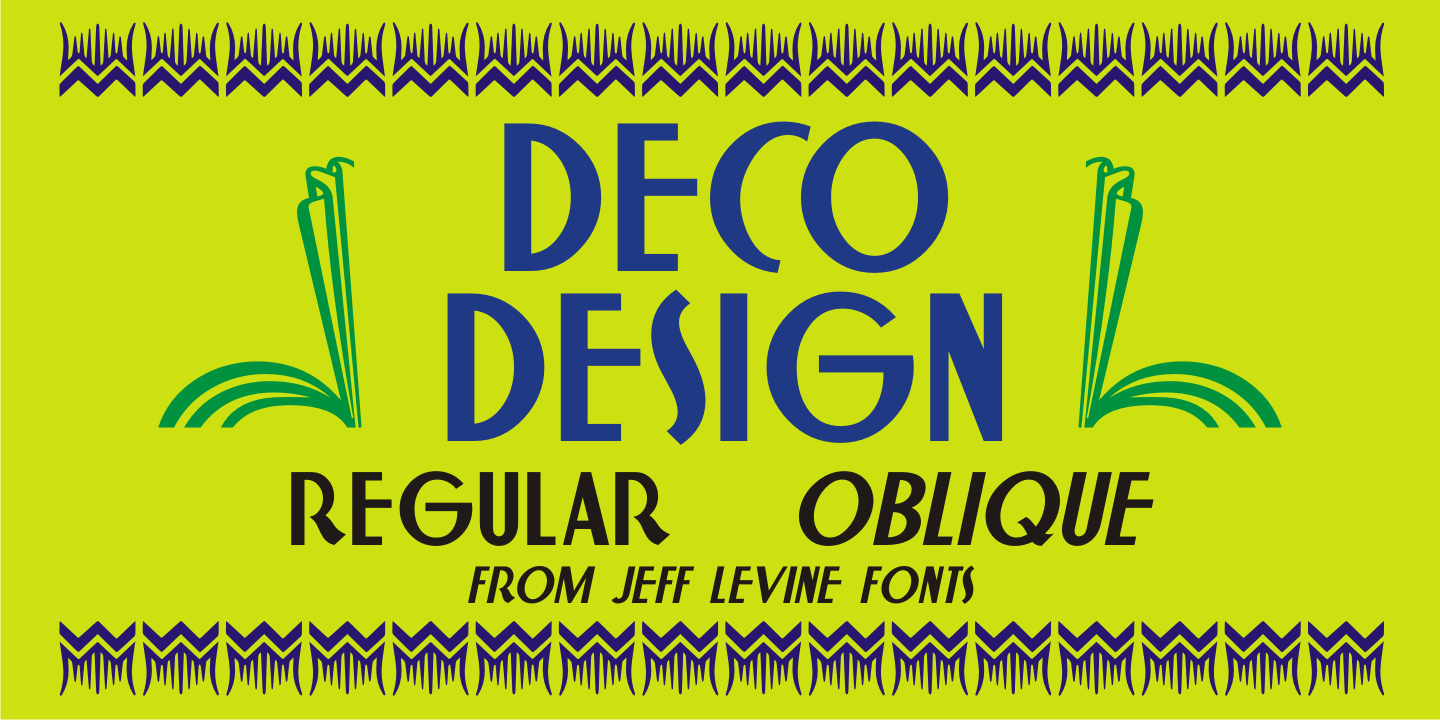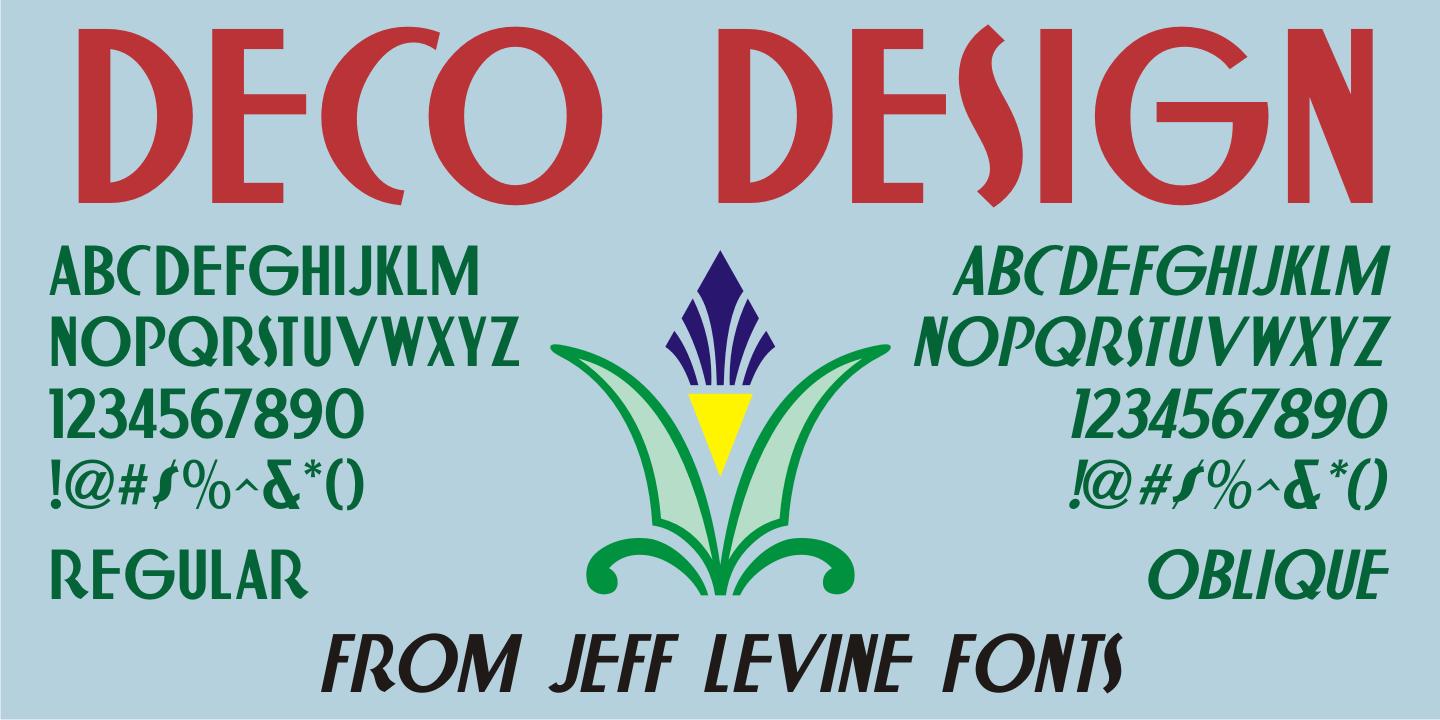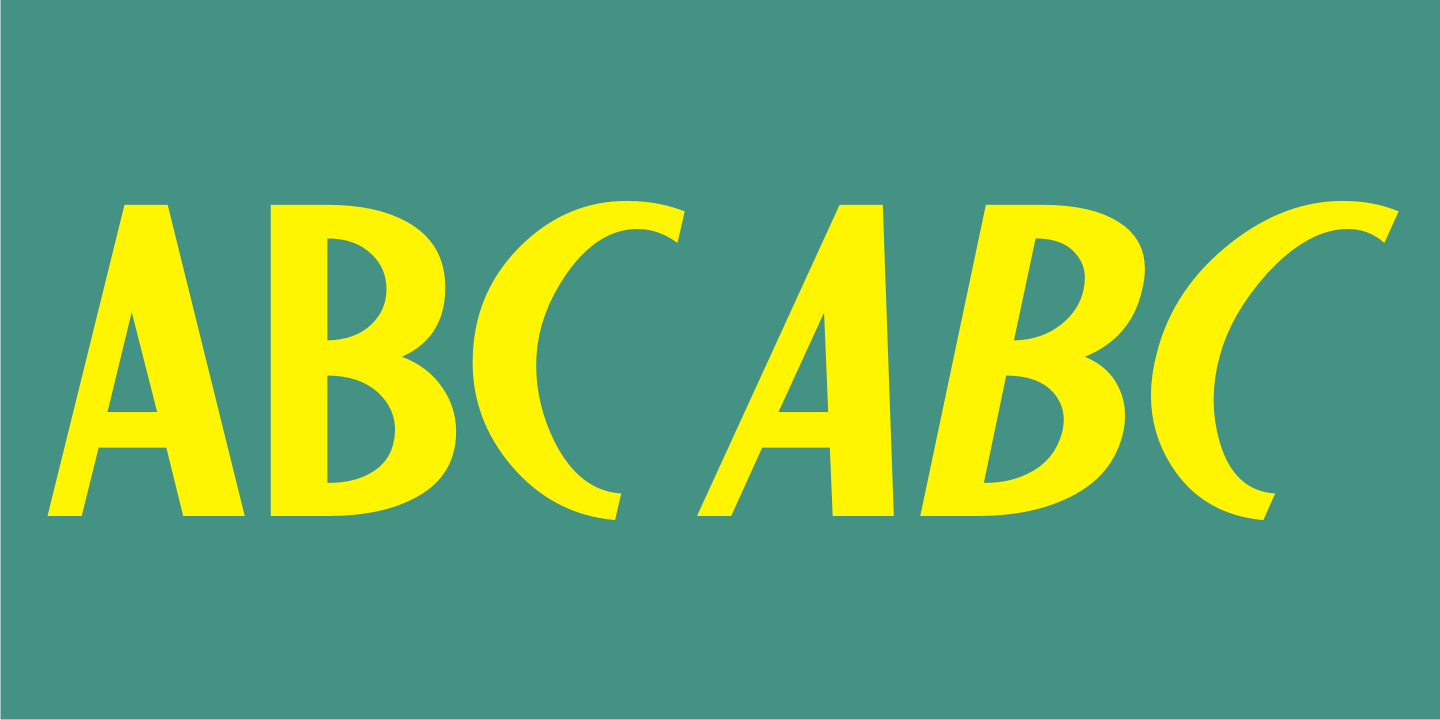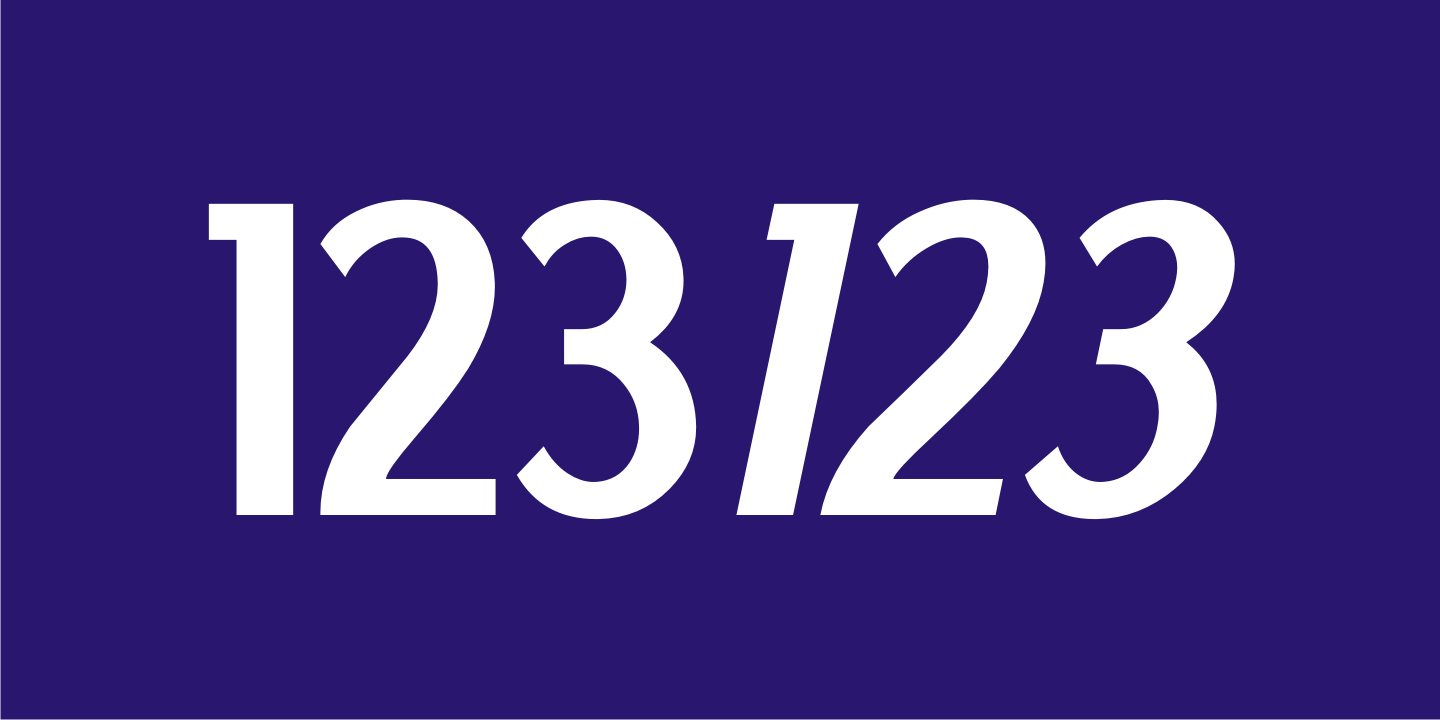
Deco Design
Hand lettering isn't a perfect art form, and this is why it often has an appeal over formal typesetting. Individual interpretation can lead to variations in style, character shape and overall design concept.
Case in point: The hand-drawn title for the1933 sheet music 'Why Can't This Night Go on Forever” is a simple Art Deco sans, however it mixes character widths and even angles the letter 'C' in a nonconventional way.
Deco Design JNL is the digital version of this alphabet, which is available in both regular and oblique versions.